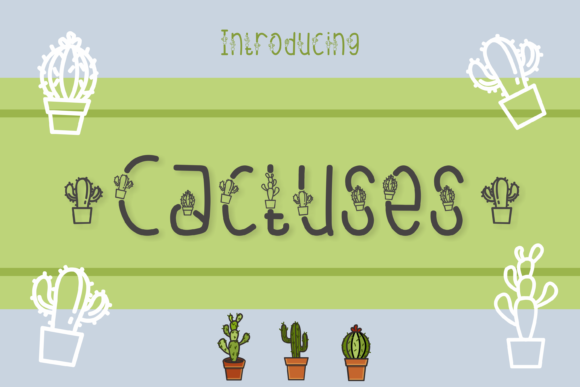
Introduction to Cactuses Font
Cactuses is an incredibly unique and interesting decorative font, featuring cactuses as ornaments.
Fall in love with its simple yet distinct style, and create spectacular designs .
Why Choose Cactuses Font?
Cactuses Font offers exceptional quality and versatility, making it a valuable addition to your design toolkit. Whether you’re creating for personal projects or commercial use, Cactuses Font delivers professional results.